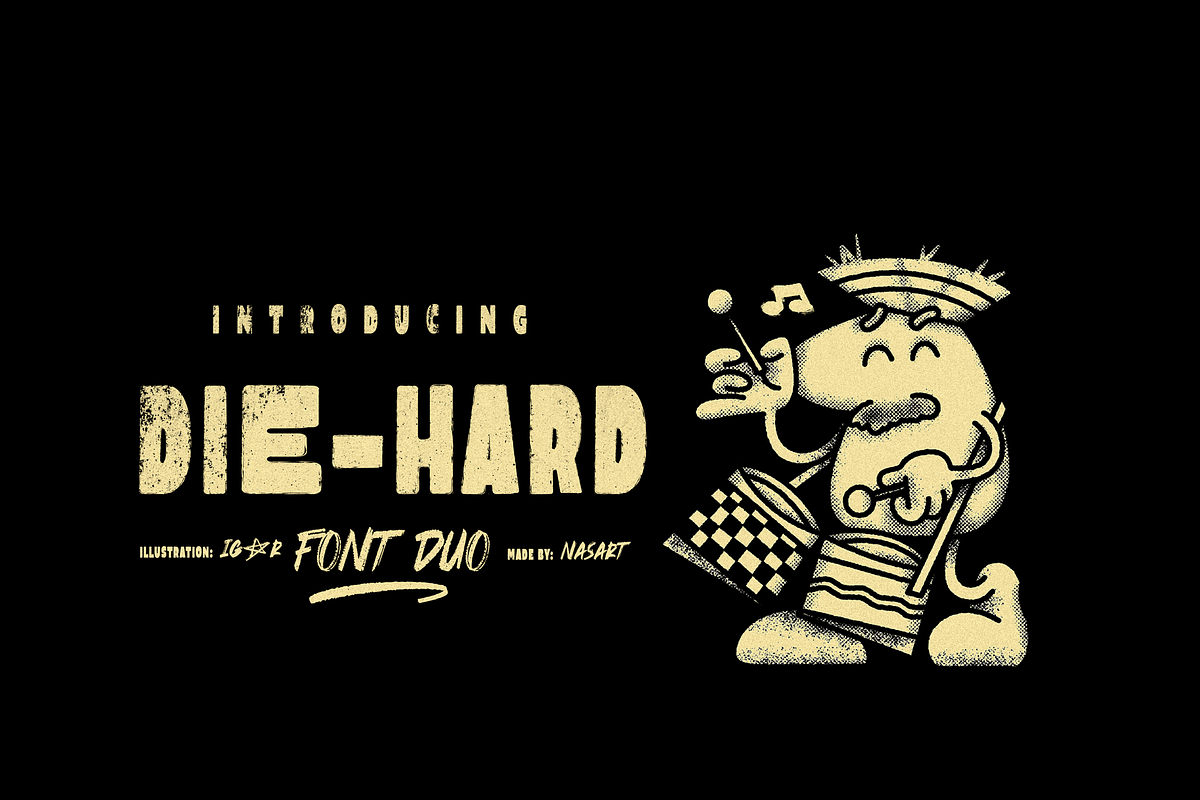
DIE-HARD - FONT DUO Free Download
DIE-HARD Font Duo Free Download
Unleash bold contrast and design flexibility with DIE-HARD Font Duo Free Download — a powerful type pairing that combines a gritty display font with a clean, complementary script or sans. Perfect for posters, branding, merchandise, and cinematic titles, this duo delivers a rugged, high-impact style with an edge.
Whether you're crafting sports graphics, gaming content, or streetwear designs, DIE-HARD’s dynamic combo gives you the tools to create eye-catching layouts. The bold display font demands attention, while the secondary font adds balance and personality. Both styles include uppercase characters, numbers, and punctuation for versatile use during the test phase.